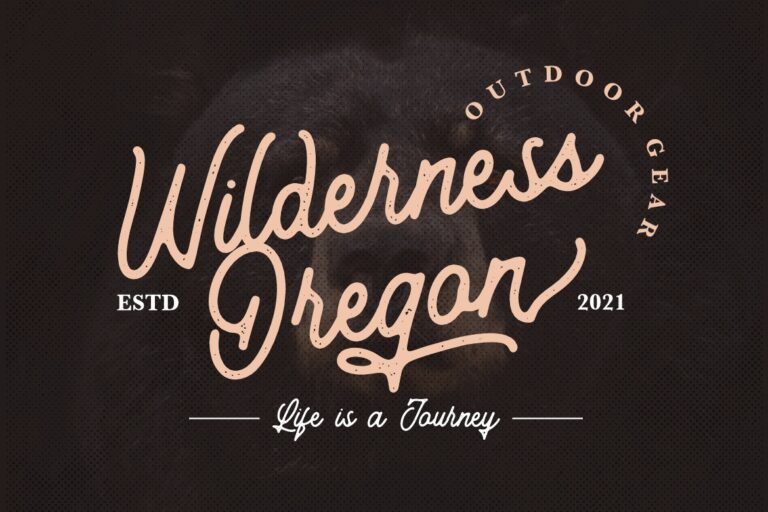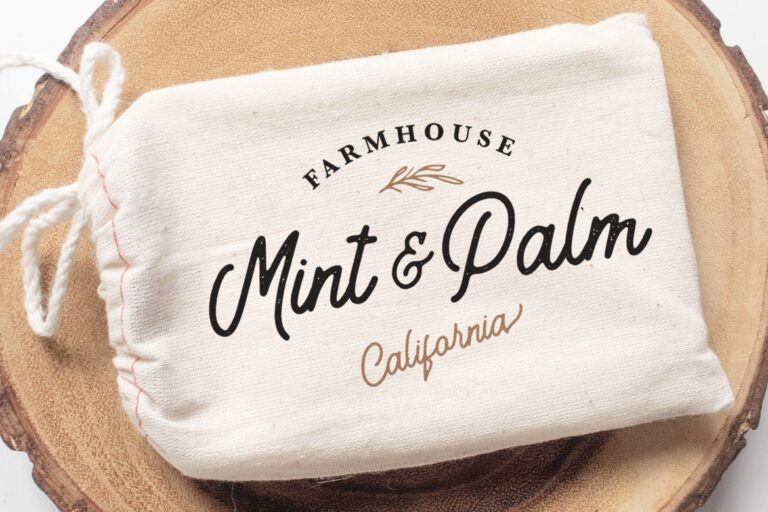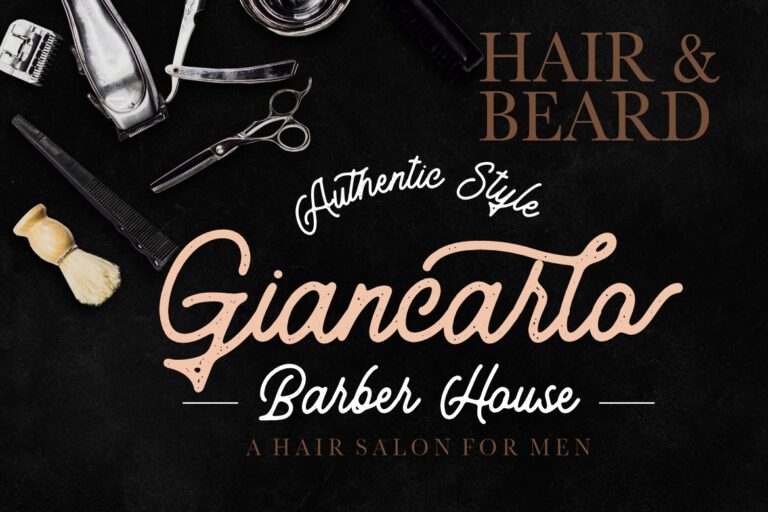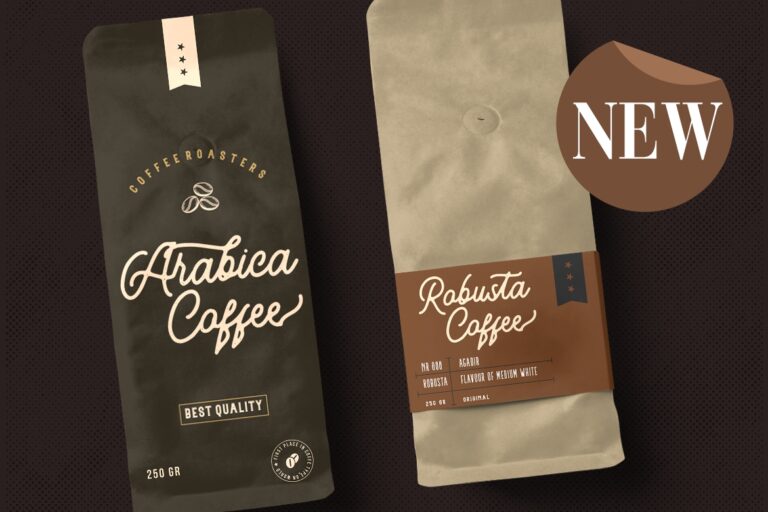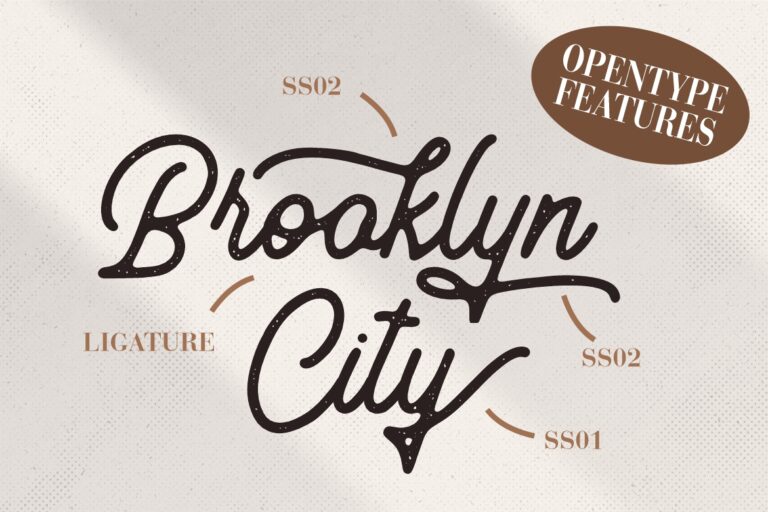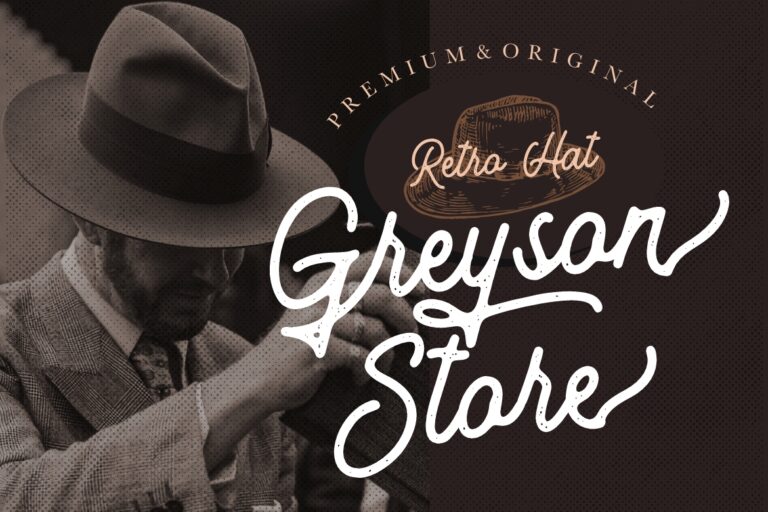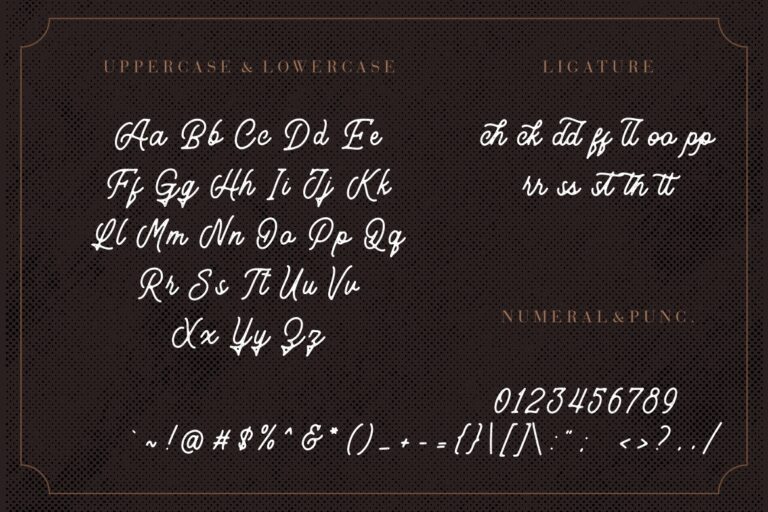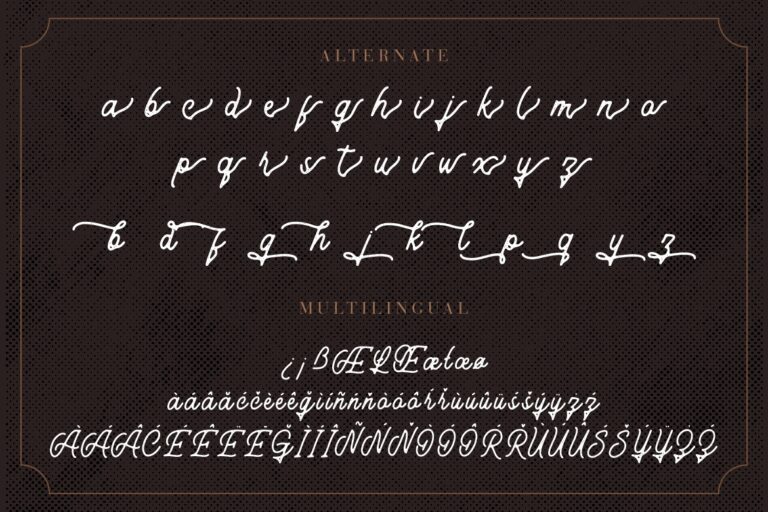
Antipathy Stamp Retro
Antipathy is retro stamp font which like using stamp effect with rough texture will perfect for grunge or vintage project.
Antipathy is perfect for branding projects, logo, wedding designs, social media posts, advertisements, product packaging, product designs, label, photography, watermark, invitation, stationery and any projects that need handwriting taste.
- Ton of glyphs
- Ligature & Alternate